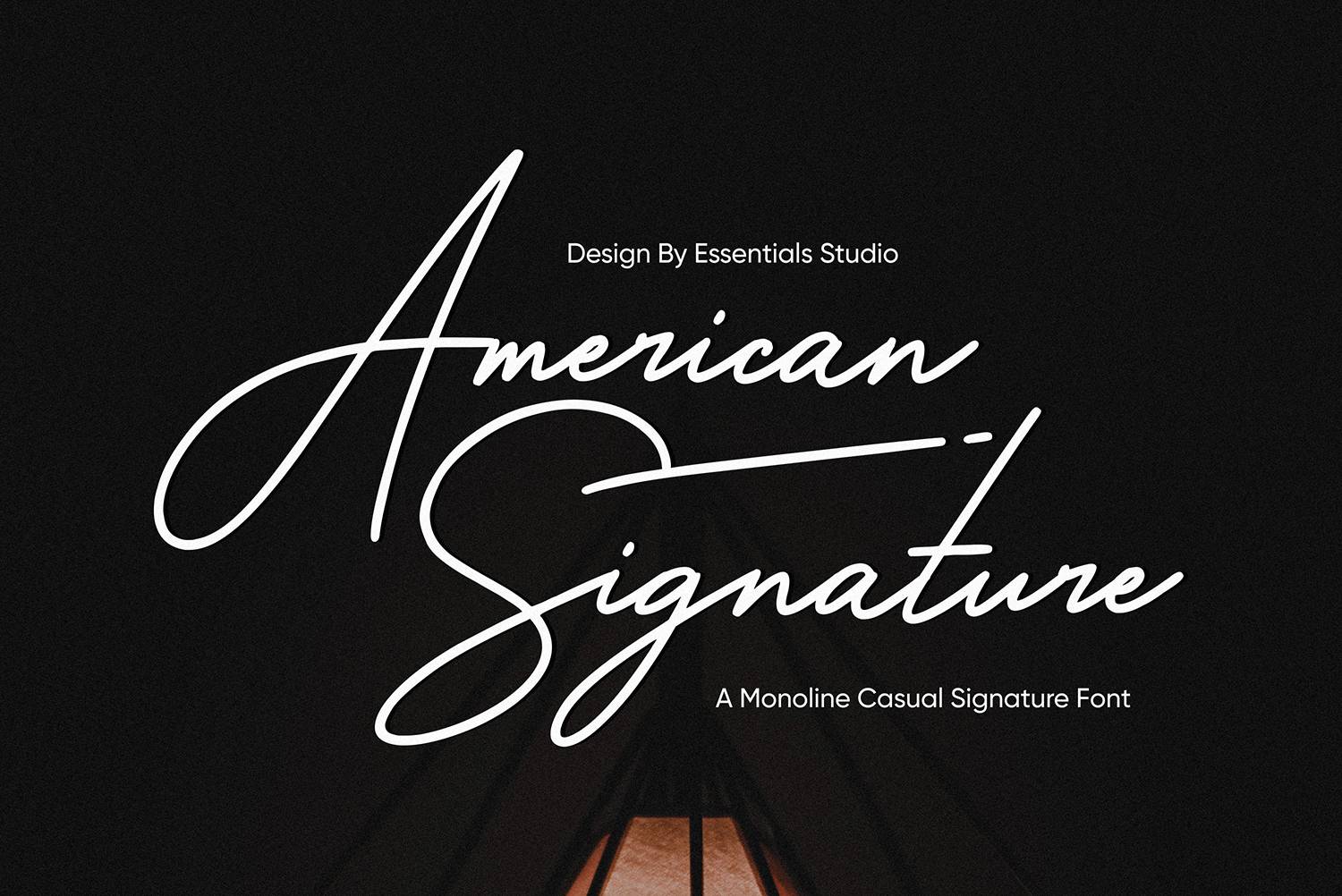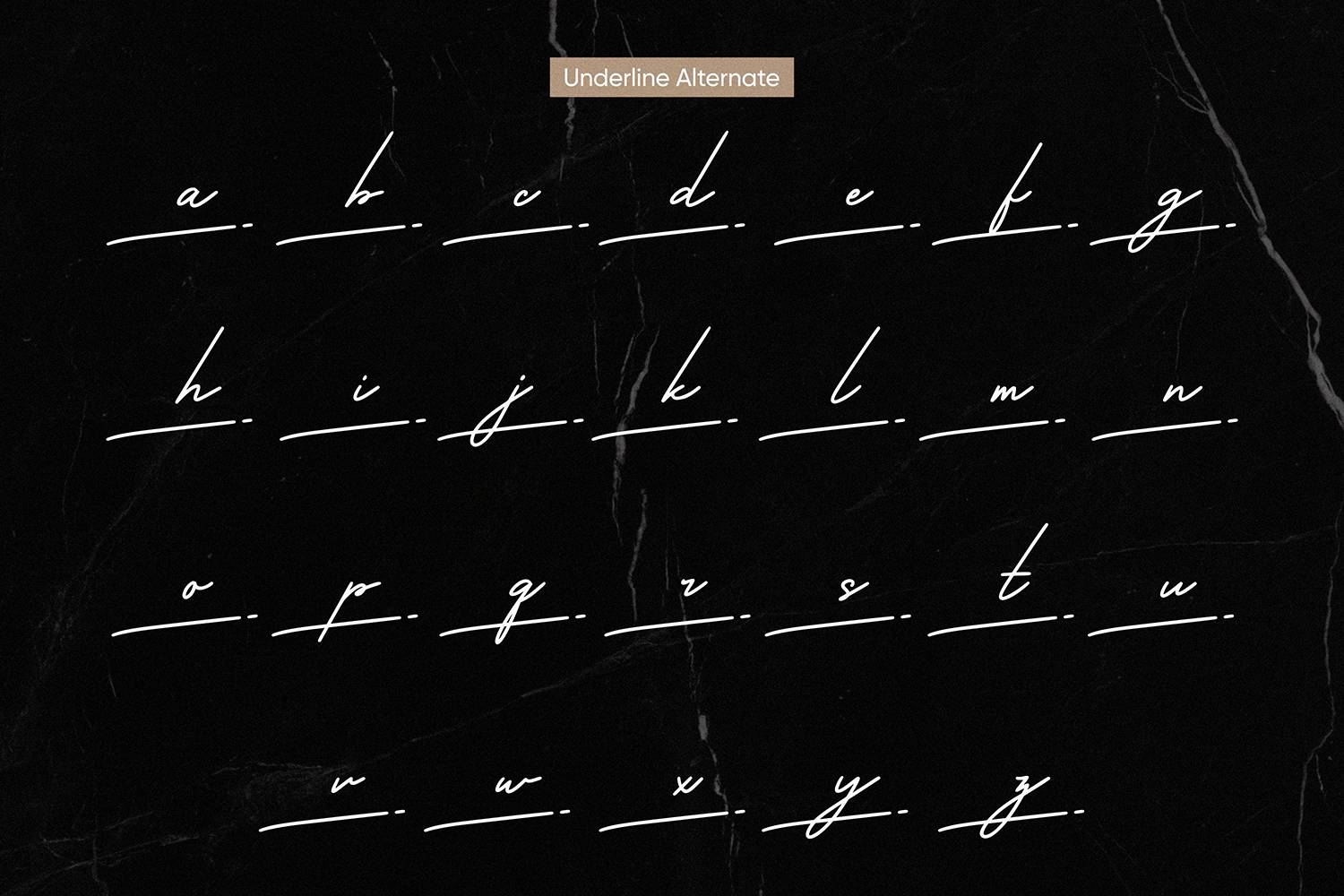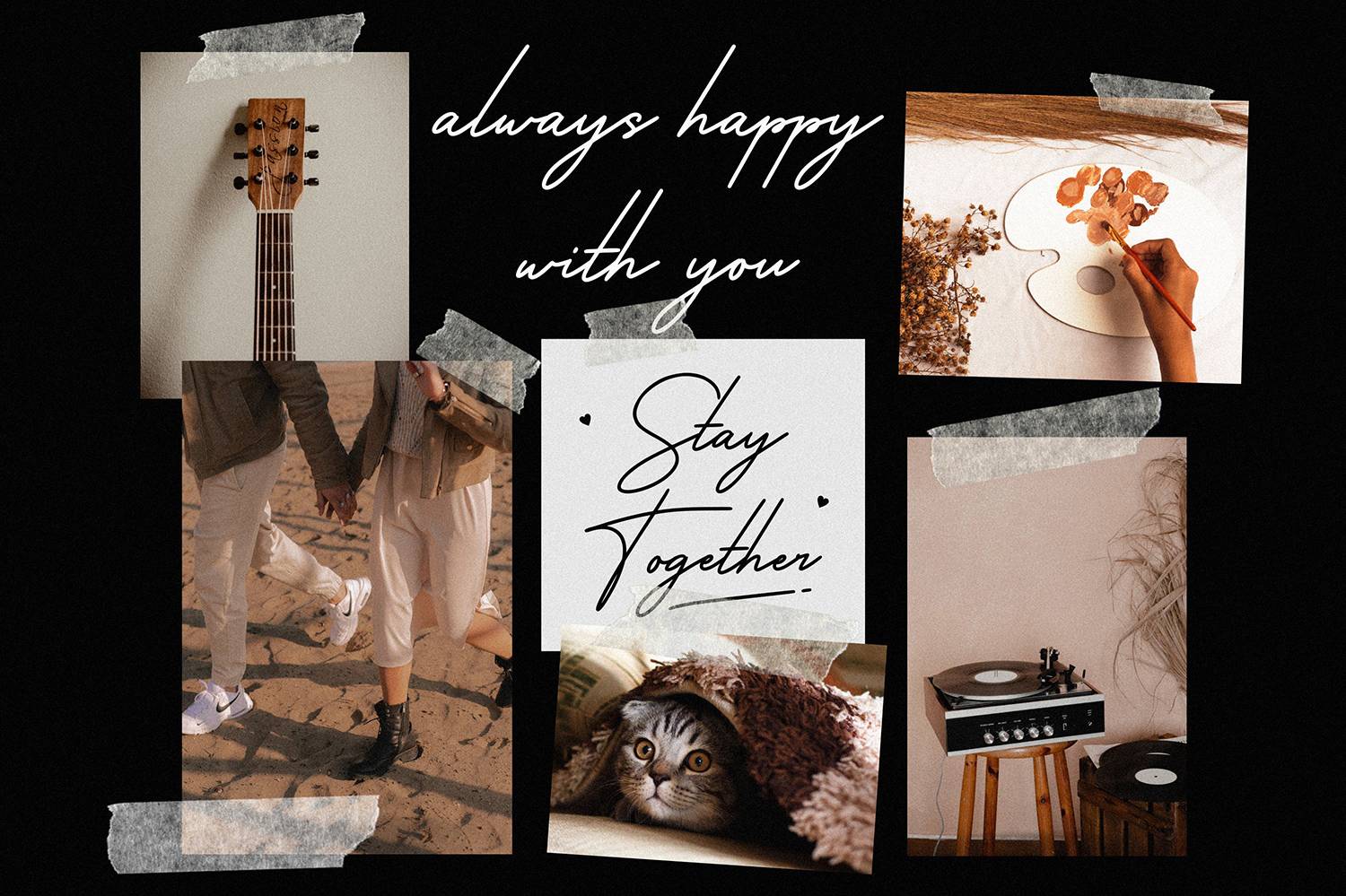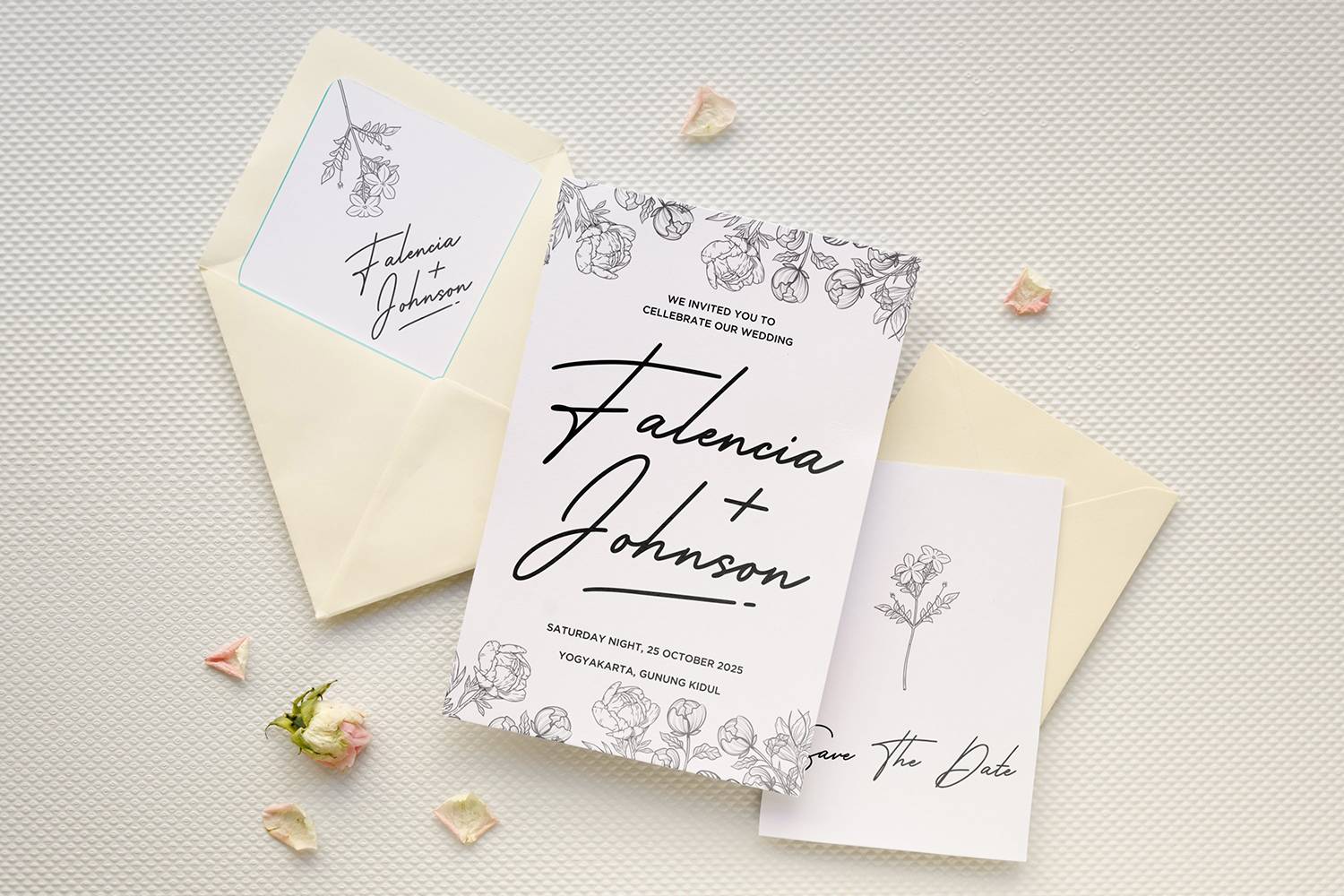
American Signature Font is a delicate and elegant script typeface that mimics natural handwriting with slender, flowing lines and a refined, personal touch. Its light weight and graceful letterforms make it ideal for sophisticated branding, invitations, and logos where a stylish, intimate, and modern aesthetic is desired. This font works well for designs that seek a sense of individuality and elegance without heaviness or formality.
American Signature Font
About American Signature Font
| Font family | American Signature Font |
| Release date | 2022-11-30 |
| Designer | Sulthan Mada Maulana Tsani |